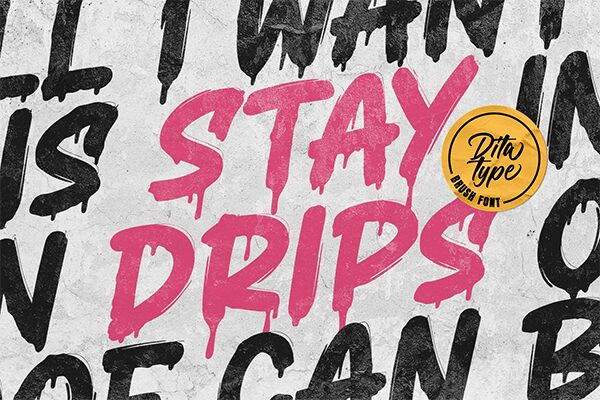
Stay Drips font by Ditatype is a scary display font with rebellious, expressive, and edgy elements. The free artistic font mimics the appearance of drips of wet paint to make any message impossible to ignore no matter where it’s used. It’s grunge, urban, graffiti-inspired, and adds that much wanted flair to any written text.